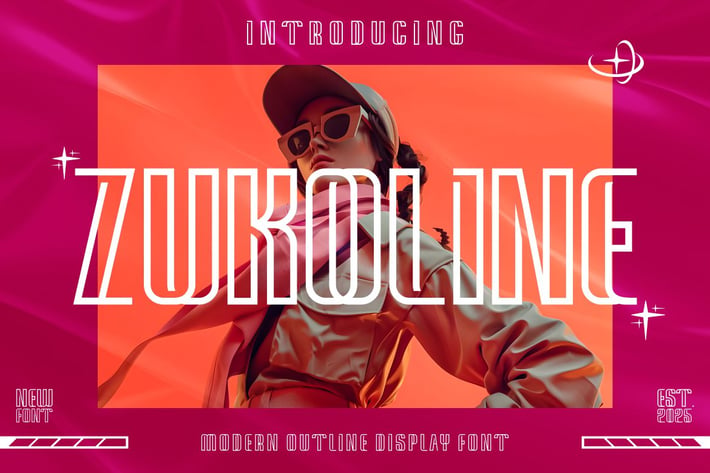
Zukoline - Outline Display Font
Introducing Zukoline , a cool and elegant Outline Display Font. Elegant font feel. This font gives you a beautiful and modern atmosphere. suitable for posters, book covers, cards, merchandise, etc.
Feature
+ Uppercase
+ Lowercase
+ Punctuation
+ Numbe